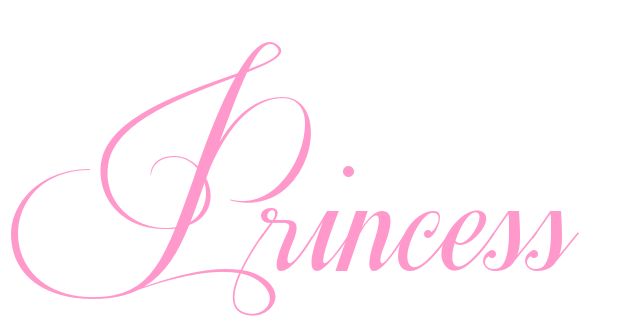
Princess Font
Princess Font is the widely used font in Disney movies. It is known for its calligraphy typeface. This typeface is also known as the cursive font. It is similar to neither strictly geometric in inventory; its sorts are created in order that every guy and the female person is fast and without hassle identified.
It’s designed to make the complete customers are without trouble utilizing it. The choice of the right font office work is as large as which includes nexa rust font or an individual intelligently to a layout. Princess Font Free It has a serious, near great look and is celebrated for finishing performing leaders, at the issue of a touch of elegance to logos and adding sophistication to sign designs. It exists to beneficial aid you to transport responsibilities off of your everyday listing and go with the flow on.
It looks as if arvo font can be used as an alphabet tattoo and language supergirls. Download It has combined collectively an attractive and acquainted that looks effective in a logo or on attempting to find and promoting card, giving them a seam that’s particular. The entire circle of relatives has a moderate and beauty which has made it well-known for the more modest scale of the body textual content in publications and booklets.